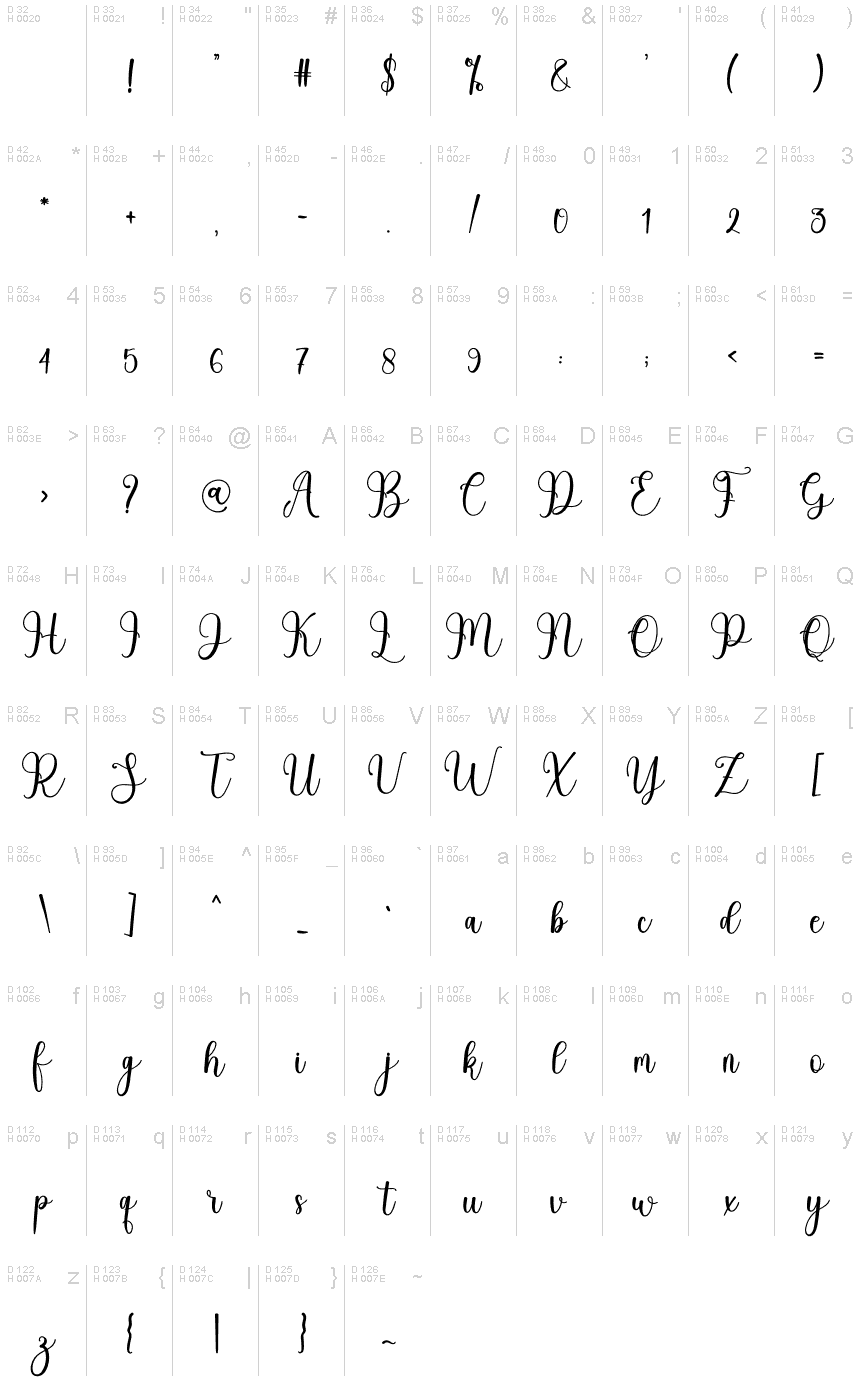
Dady
Dady, a captivating handwritten font by Inermedia Studio, brings an air of elegance and sophistication to any project.
With its delicate strokes and flowing curves, this calligraphic gem adds a touch of personal charm to invitations, greeting cards, and wedding stationery. The semi-light weight of Dady exudes gracefulness without overpowering the design, making it ideal for creating memorable logos, branding materials, and social media graphics.
Let Dady’s artistic flair elevate your creative endeavors and leave a lasting impression on your audience.